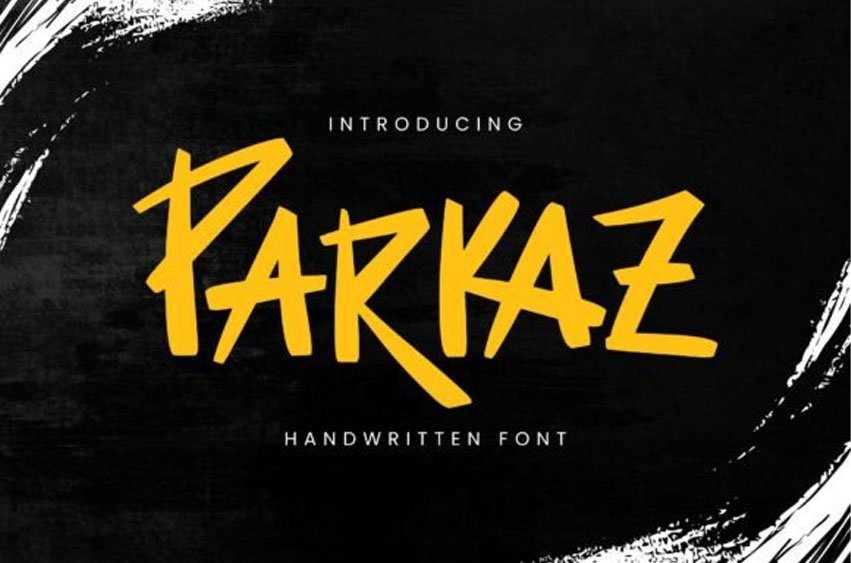
Parkaz Font: Immerse yourself in the warmth of penned ink using our exclusive collection of handwritten fonts. Meticulously crafted with artistic intent, each character breathes authenticity and charm into your vision.
Amplify your project’s allure using our tasteful and enthralling handwritten fonts, a testament to sophistication and entrancing elegance.